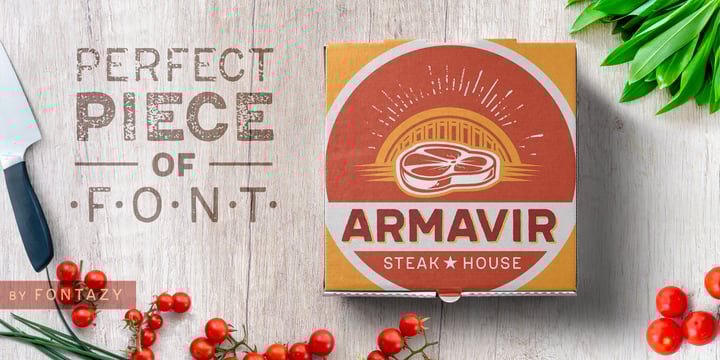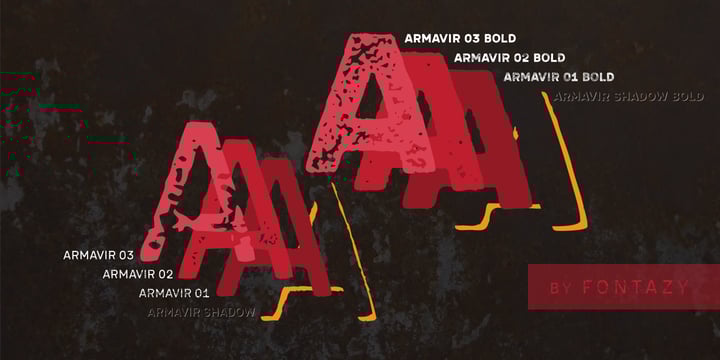
Armavir
par FontaZY
La famille de polices Armavir a été conçue par Zakhar Yaschin et publiée par FontaZY. Armavir contient 8 styles et options de package familial.
Armavir by Fontazy is an uppercase type-family consisting of three gradually distressed sub-families Armavir 01, Armavir 02 and Armavir 03 (each in Regular and Bold weights) and Shadow (also in Regular and Bold). Armavir is a sans serif font with a slight touch of handmade. Each typeface contains stylistic alternate version of vowels -A, -a, -E and -e, that converting uppercase font in unicase(-ish). The Shadow style is suitable for each of three text styles. Being a duplicate of the text layer, it gives an additional decorative appearance to the text. All fonts in the family has Latin (West, Central and Baltic) and Cyrillic encoding. Armavir is perfect for logo making, print design, advertising, branding etc.